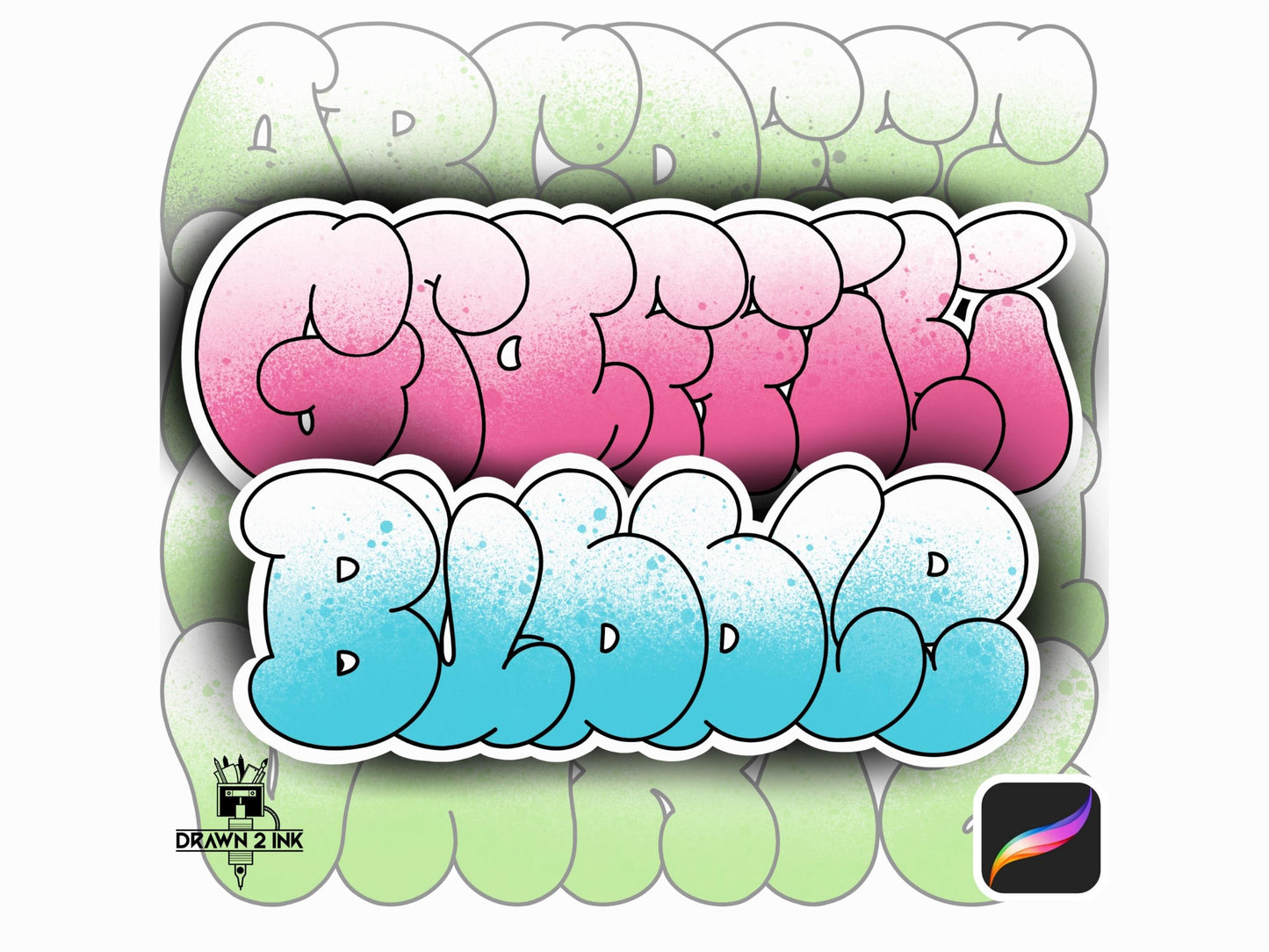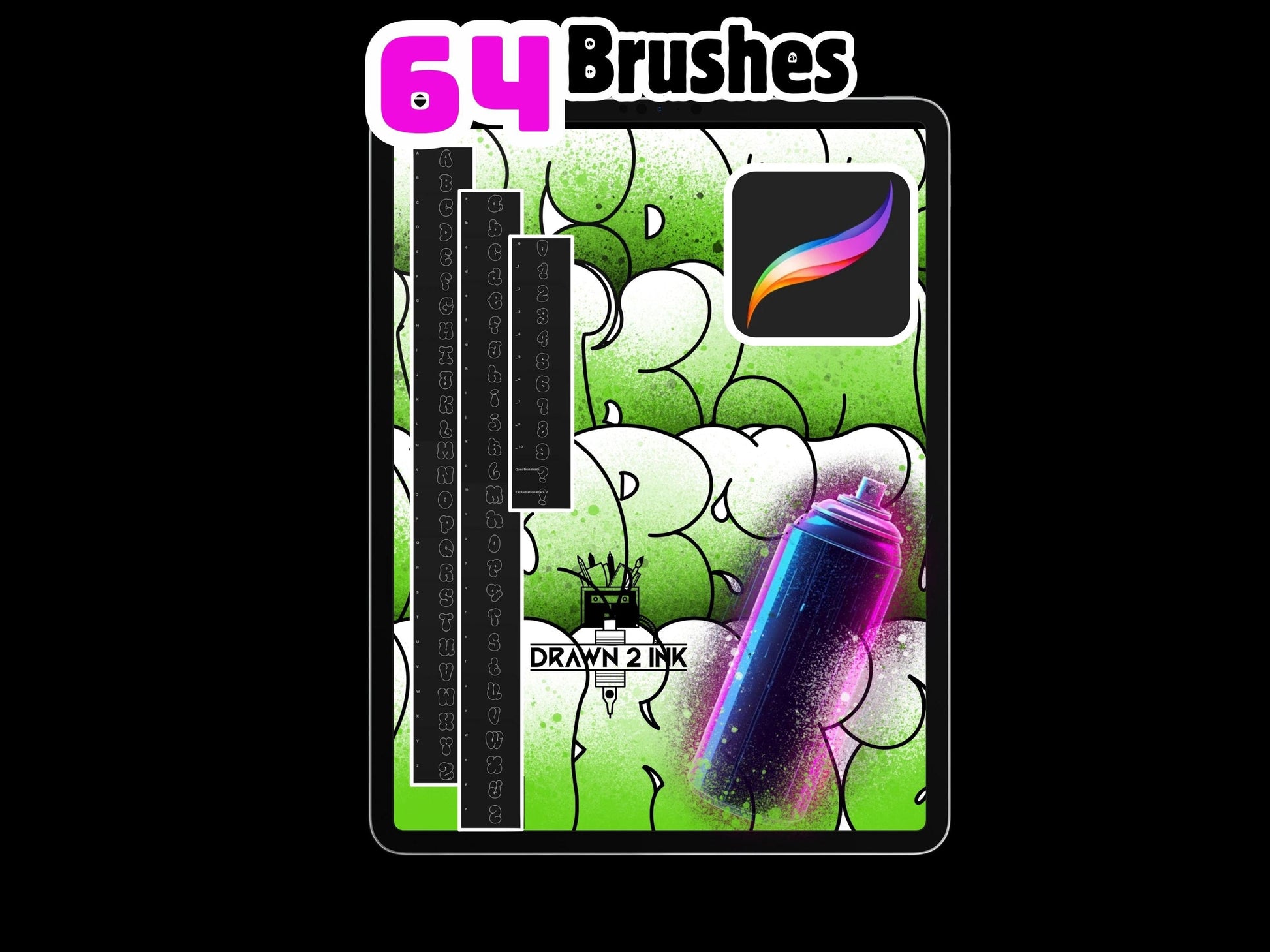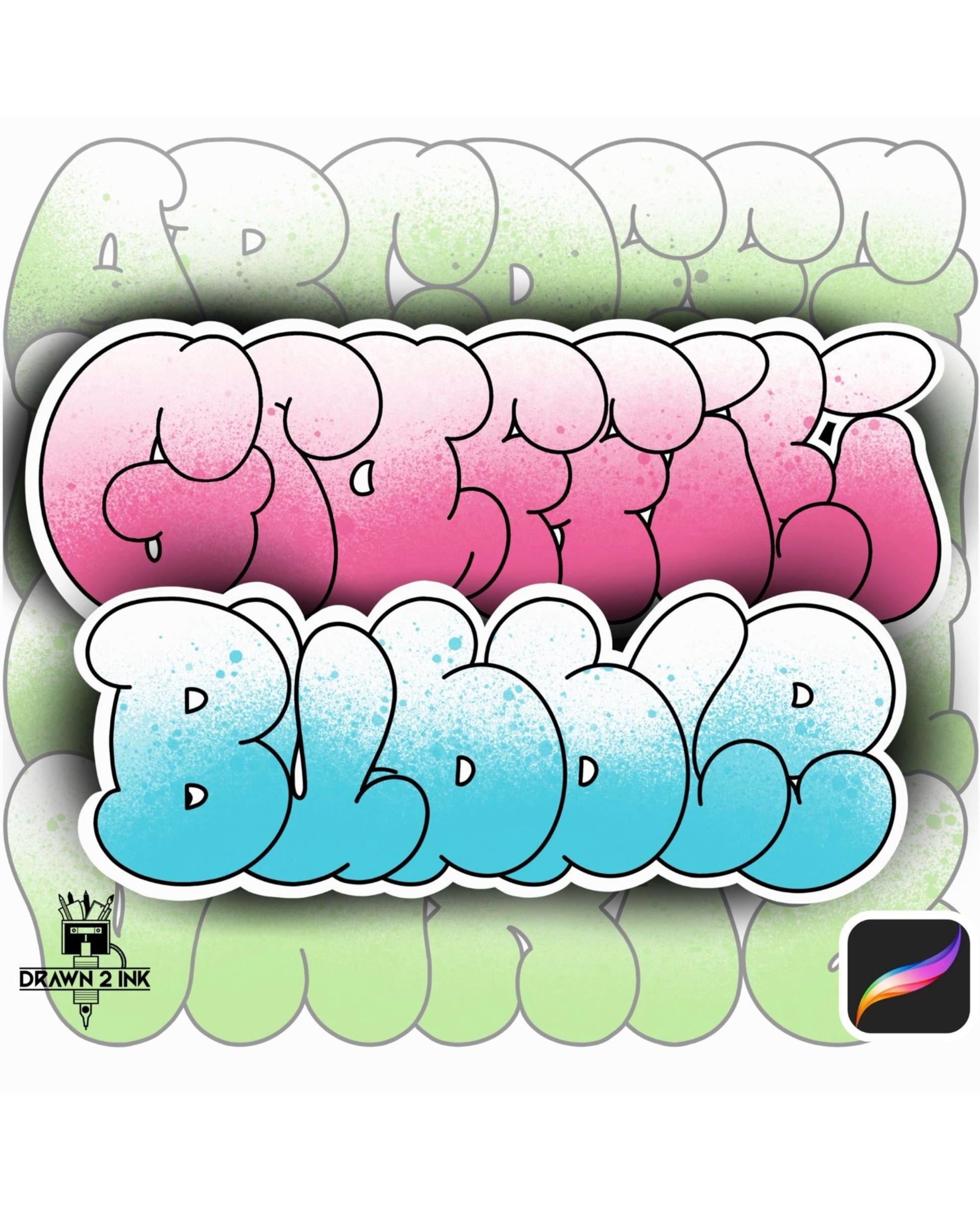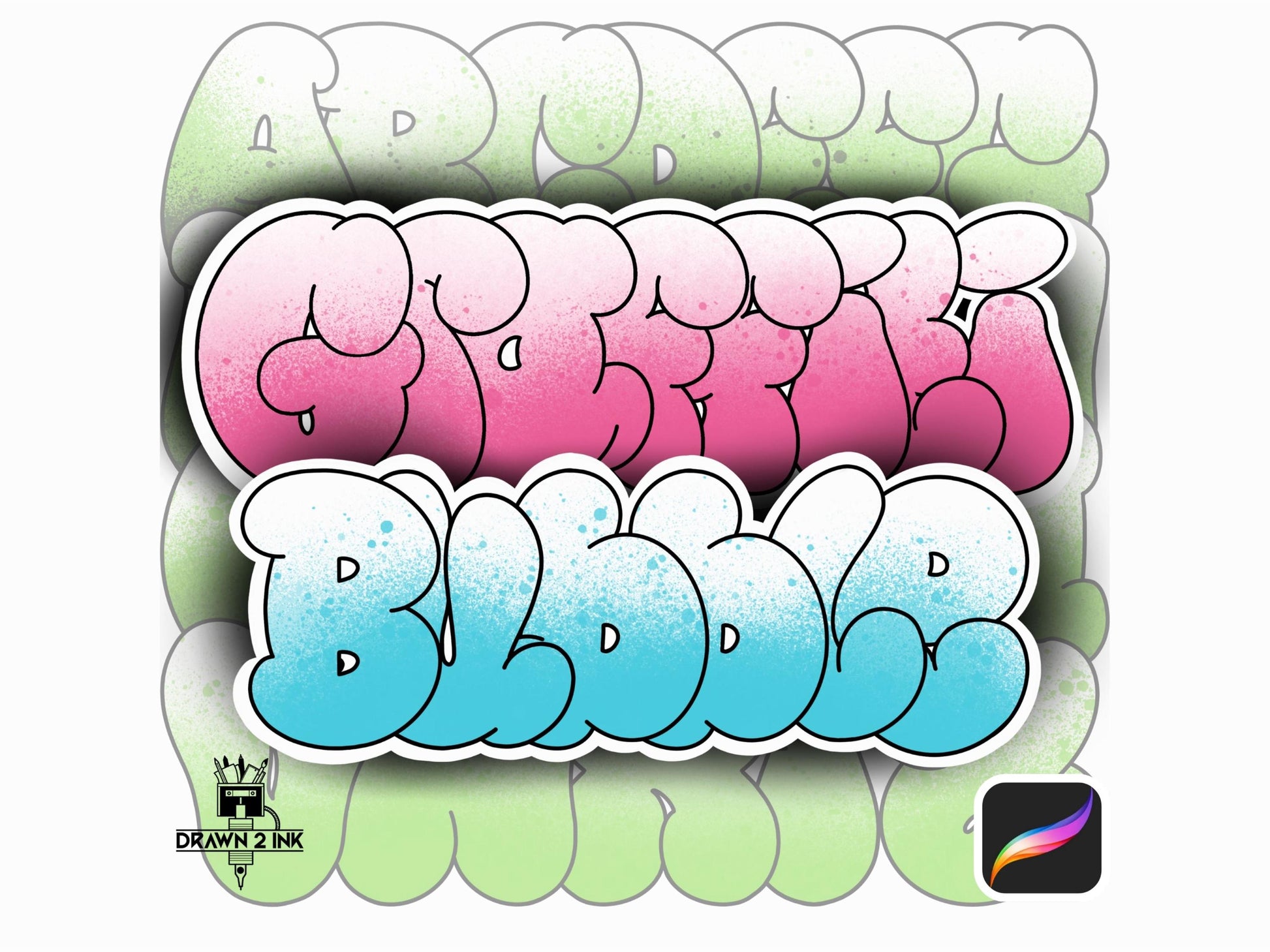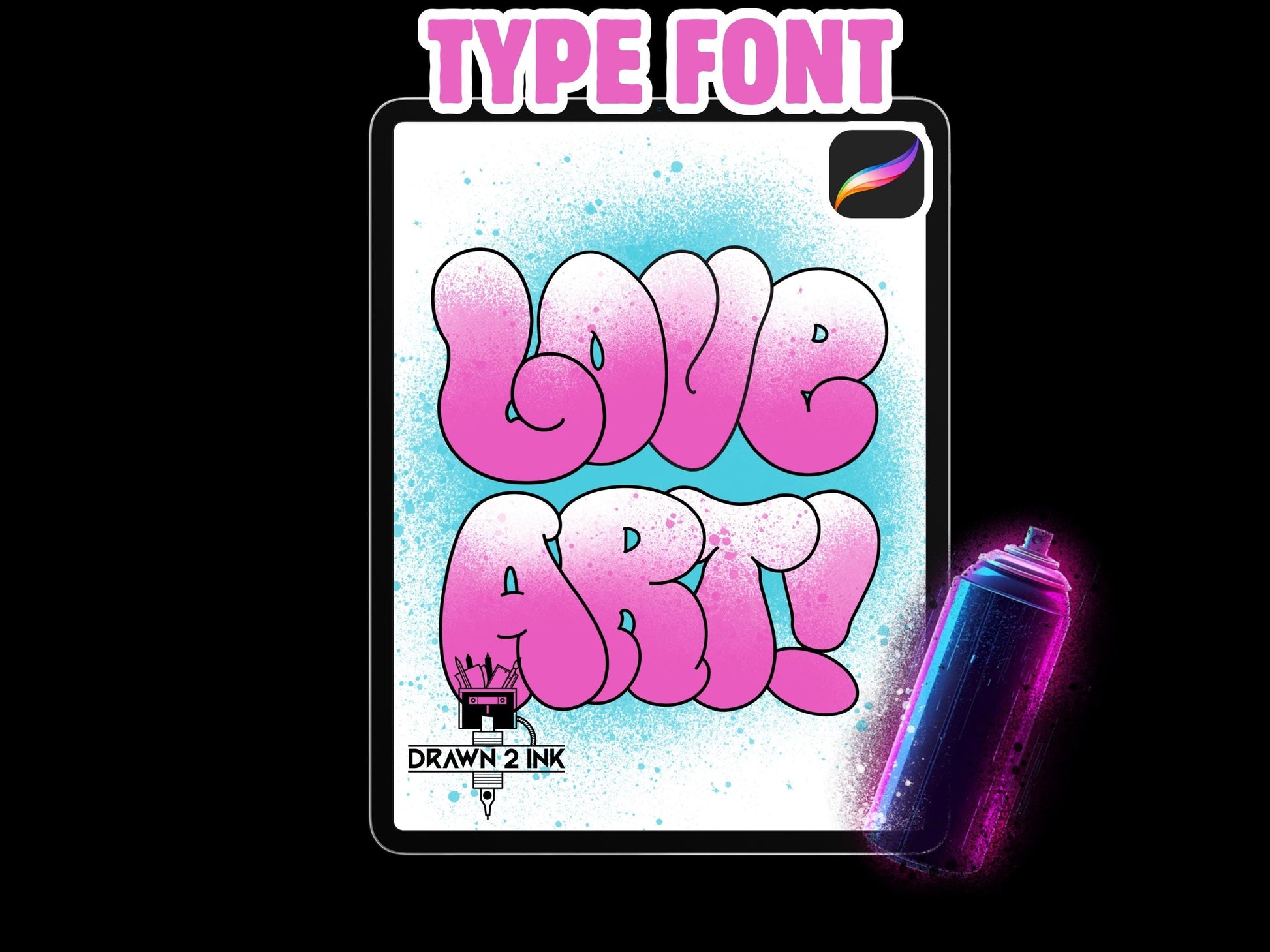
Graffiti Bubble Font & Procreate Stamps • Digital Lettering (TTF/OTF)
Bring bold street-art style to your digital work with this Graffiti Bubble Text Set — perfect for tattoo artists, digital illustrators, and anyone who wants clean, ready-to-use bubble lettering.
This pack includes 64 Procreate stamp brushes covering:
Full uppercase bubble alphabet (A–Z)
Full lowercase bubble alphabet (a–z)
0–9 numbers
! ? punctuation
Drop them into your artwork in seconds — perfect for titles, tattoo designs, posters, stickers, YouTube thumbnails, and bold urban-style compositions.